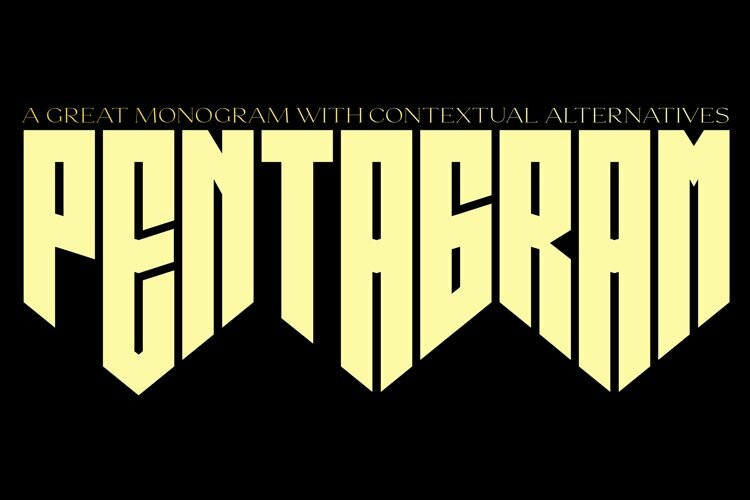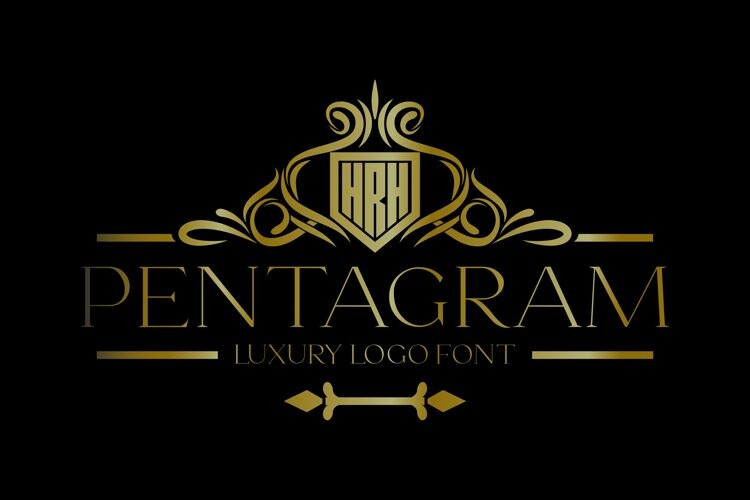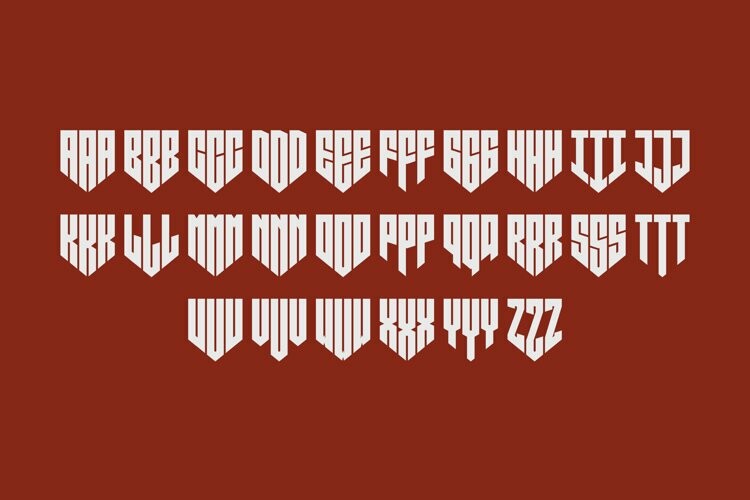
Pentagram Font
Pentagram FontPentagram is a typeable three-letter Pentagon monogram font. You can type Monogram a pentagram with a mapped border on the numbers 0-9.
With the support of alternative contextual features It works automatically so all you can do is just type.